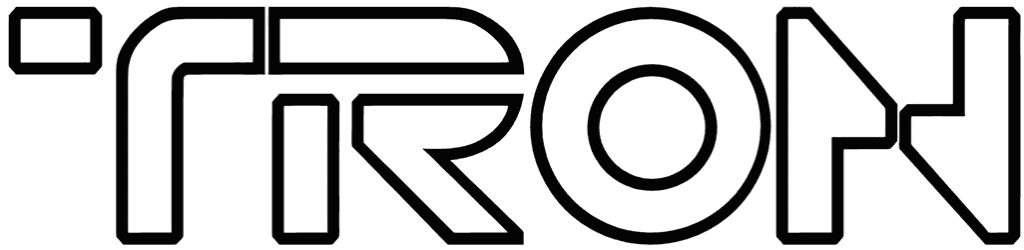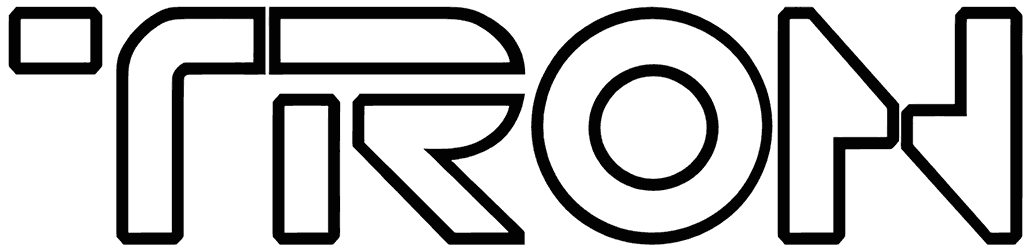
TR2N Font
TR2N is a techno font whose characters are made up of several different parts and look very eye-catching, so it can add an artistic touch to your graphic designs. Although some of its letters may be difficult to read, th…
TR2N is a techno font whose characters are made up of several different parts and look very eye-catching, so it can add an artistic touch to your graphic designs.
Although some of its letters may be difficult to read, they can attract the attention of the audience by conveying a sense of innovation, modernity, and momentum. It is better to use this movie font that doesn’t support lowercase letters in logos, billboards, photo editing, and printing on clothes.